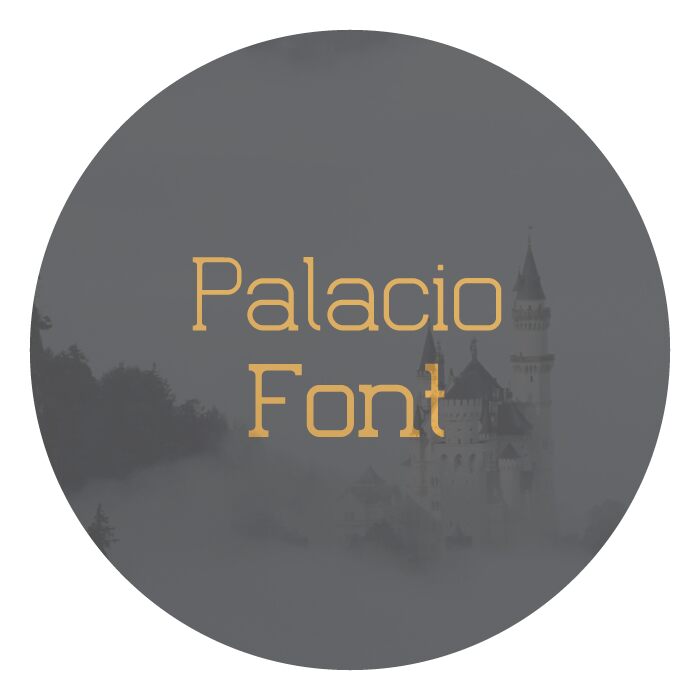
Palacio by ++ Design is a free high-contrast serif with tall proportions and an unusually crisp, architectural profile. Broad vertical strokes meet fine joins and flat, decisive serifs, while the rounded letters keep the design from looking severe.
Its fashion-editorial character makes it especially convincing on magazine covers and cultural event posters. The same refined geometry can shape perfume packaging or a boutique hotel identity, where the lettering can suggest elegance without ornamental detail. It is best suited to designers working in fashion, hospitality, and premium lifestyle markets.